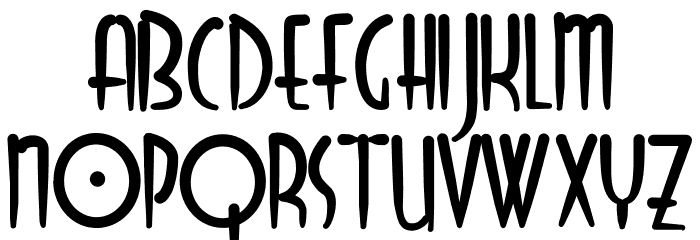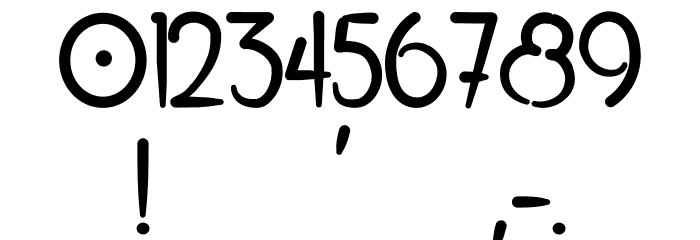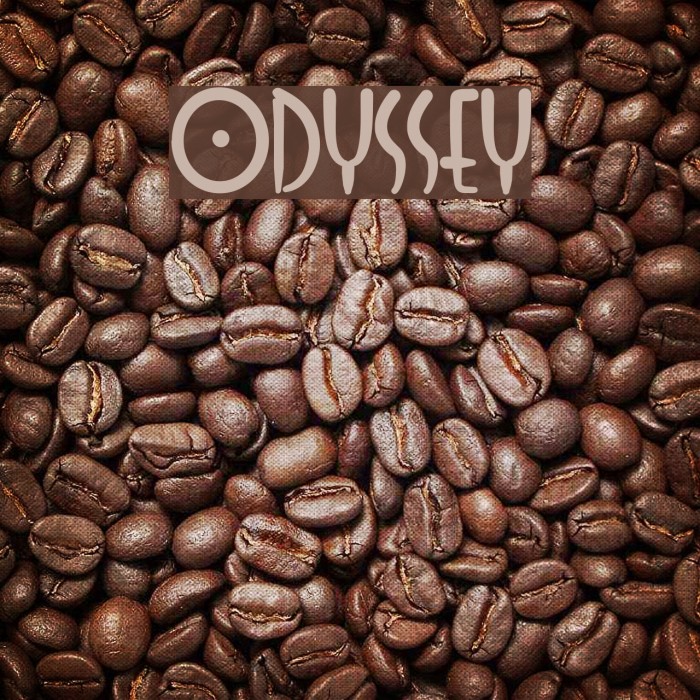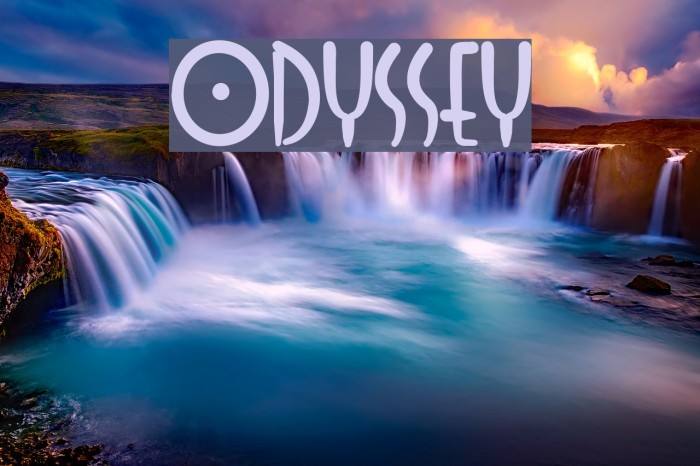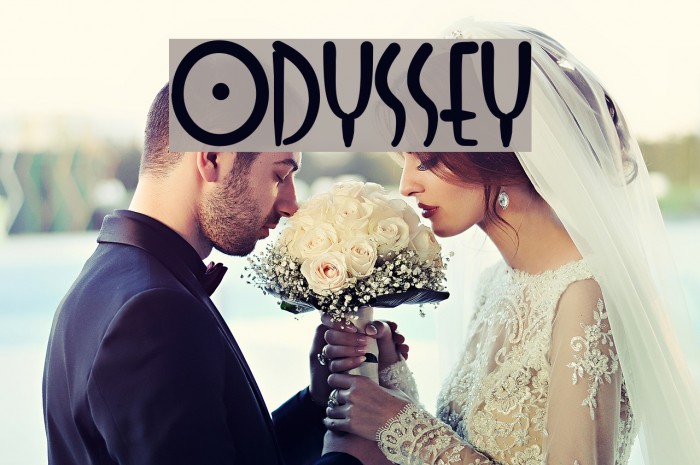
Odyssey Font
This font features a unique and playful design with a distinct retro flair. The characters are tall and narrow, with rounded edges and a consistent stroke width that gives it a uniform appearance. The uppercase letters have a whimsical quality, with certain letters like 'O' and 'Q' incorporating circular elements that add to its charm. The lowercase letters maintain the same playful style, ensuring consistency throughout. Numbers are bold and easily readable, while special characters like the exclamation mark and question mark are designed to match the overall aesthetic. This font is perfect for projects that require a touch of nostalgia and creativity.
A playful, retro-inspired font with tall, narrow characters and rounded edges.
- Proposed Projects: Ideal for vintage-themed posters, playful branding, creative invitations, and retro-style advertisements.
- Overall Style: Vintage